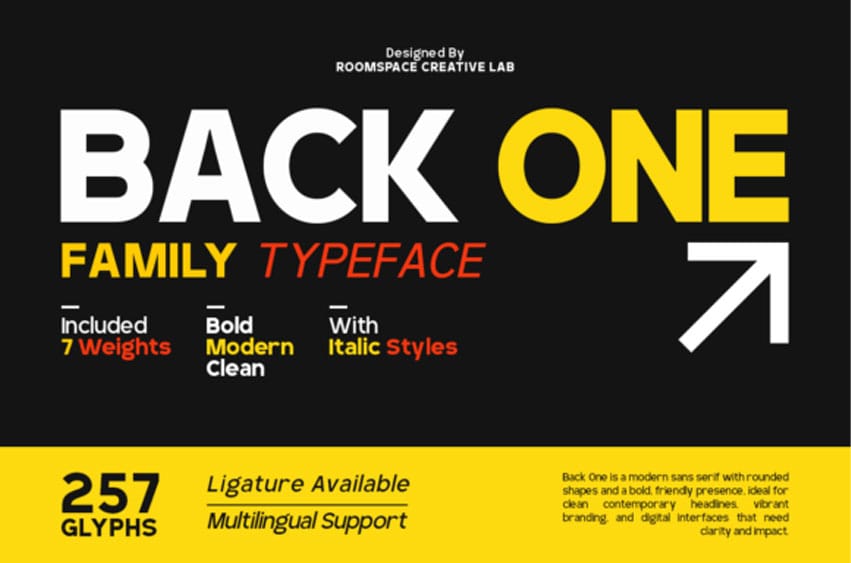
Backone Font
Backone Font is the epitome of modern minimalism, offering a clean and versatile sans-serif family that excels in digital and print environments.
This Back One typeface features a wide range of seven weights, allowing for seamless transitions between bold, impactful headlines and light, airy body text. Its geometric foundations and generous apertures make the Back One font exceptionally legible on screens, making it a perfect candidate for UI/UX design, corporate identity, and tech-focused branding.
The inclusion of true italics and multilingual support ensures that this typeface is a functional workhorse for global projects. Enhance its modern appeal by using tight tracking for a high-impact editorial look, or give it plenty of white space for a premium, architectural aesthetic.